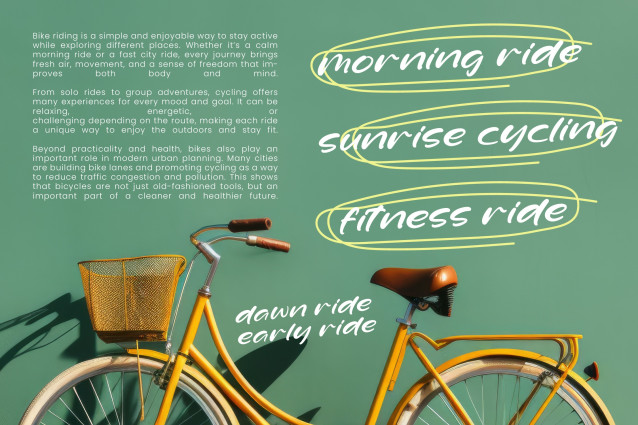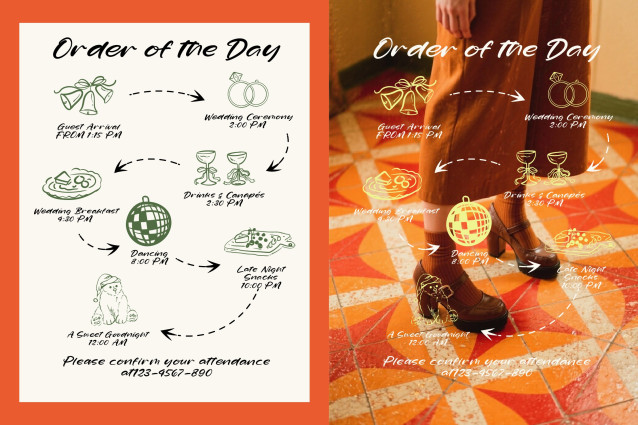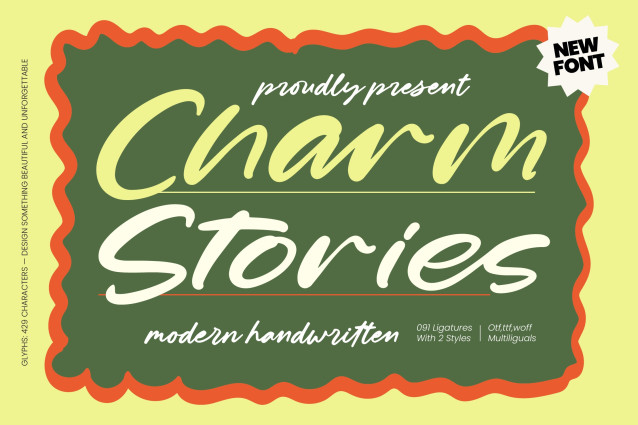
Charm Stories – Modern Handwritten is a premium script font meticulously crafted to bring a contemporary aesthetic and a handcrafted feel to any digital or print project. Its fluid strokes and organic rhythm capture the essence of visual storytelling, making it an essential asset for designers seeking to add a personal, high-end touch to their creative portfolios.
Master the art of bespoke typography with professional-grade features designed for maximum impact. Boasting 091 unique ligatures and over 429 characters, Charm Stories – Modern Handwritten offers unparalleled design flexibility and dynamic movement. This typeface is engineered to provide a natural flow that mimics authentic calligraphy, ensuring your headlines and statements maintain a sophisticated and unforgettable presence that resonates with your target audience.